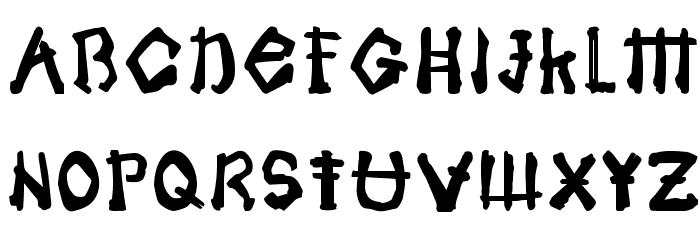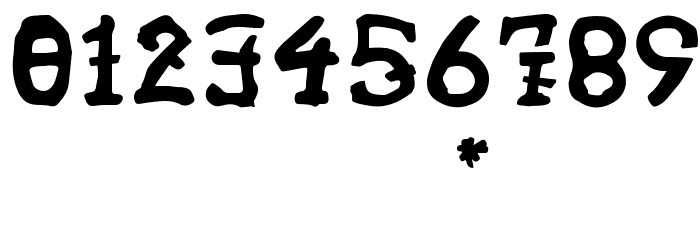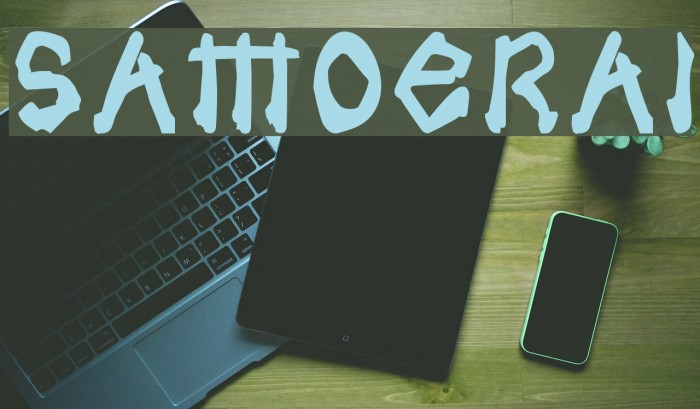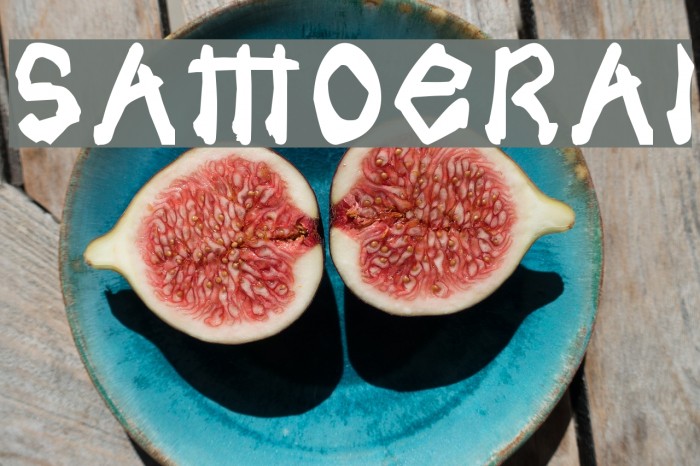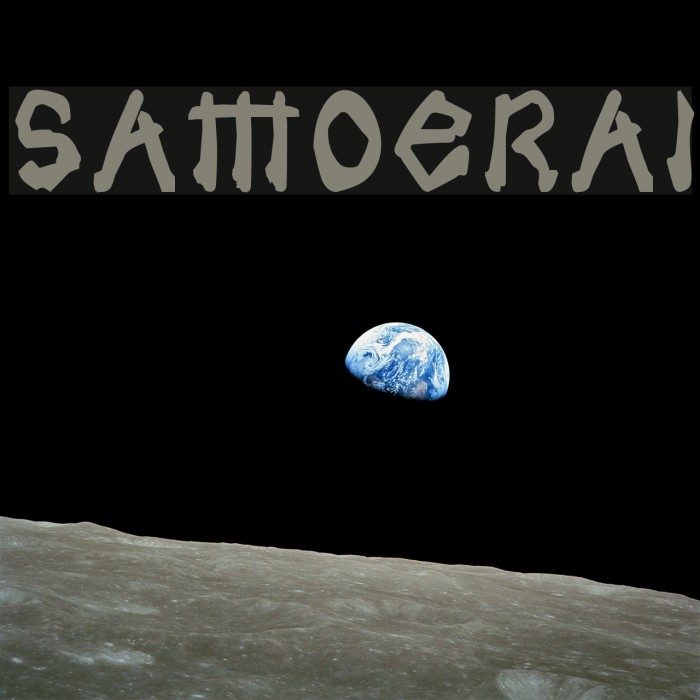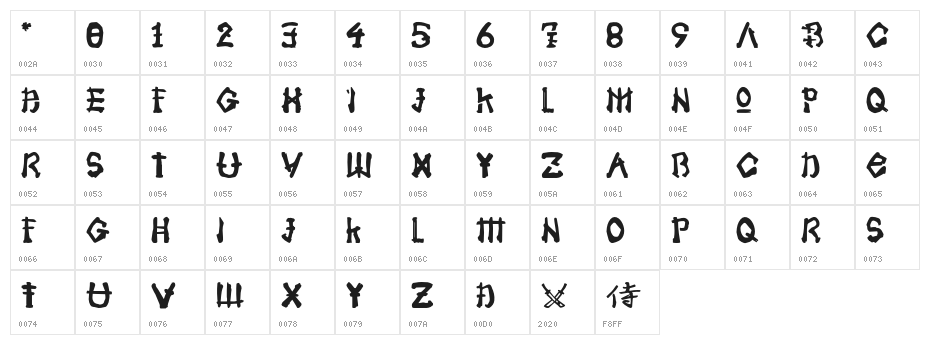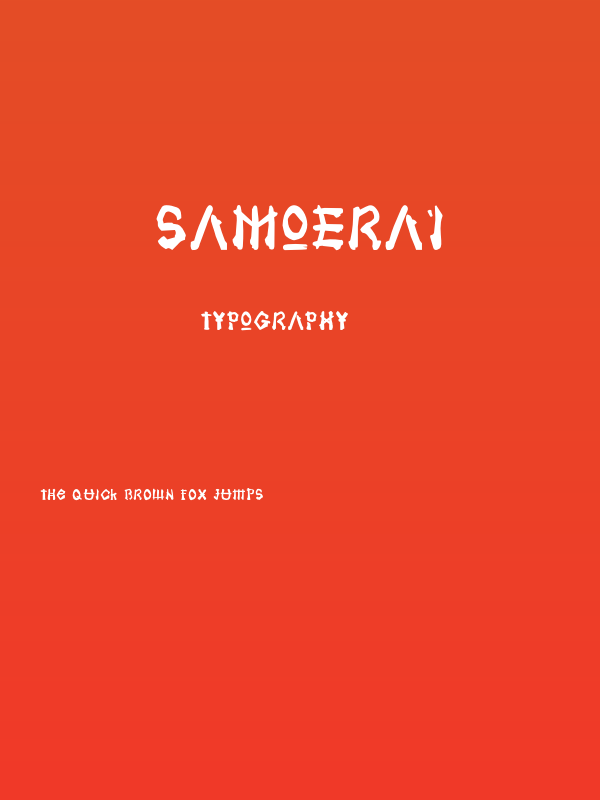
Samoerai Font
This font features a bold and dynamic style with a distinctly hand-drawn appearance. The characters are characterized by irregular, jagged edges and a slightly distressed look, giving them a rugged, adventurous feel. The uppercase and lowercase letters maintain a consistent style, with a playful yet aggressive aesthetic. The numbers and special characters follow the same design principles, ensuring a cohesive look across all glyphs. This font's unique style makes it stand out, ideal for projects that require a touch of boldness and creativity.
A bold, hand-drawn font with a rugged, adventurous style.
- Proposed Projects: Ideal for posters, logos, video game graphics, or any project needing a bold, adventurous touch.